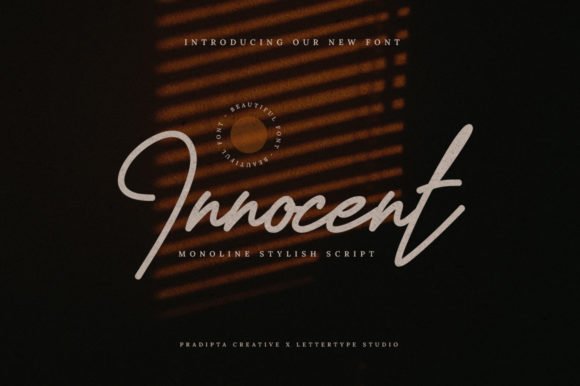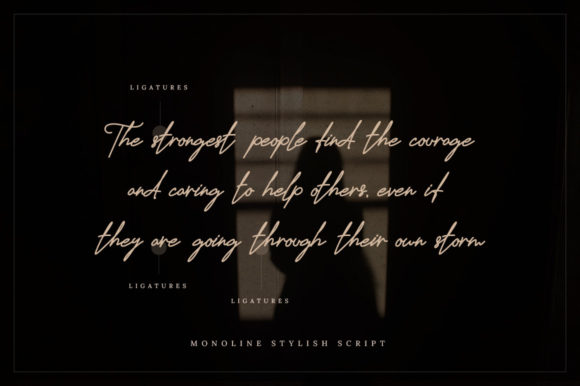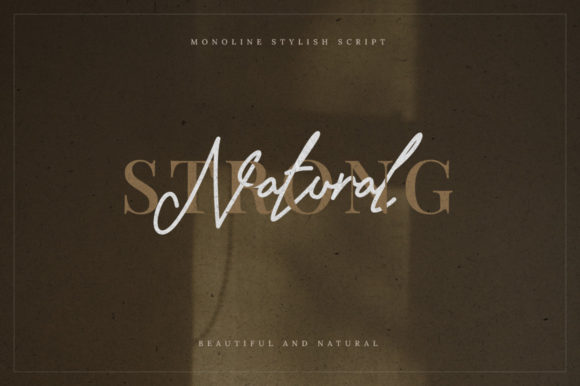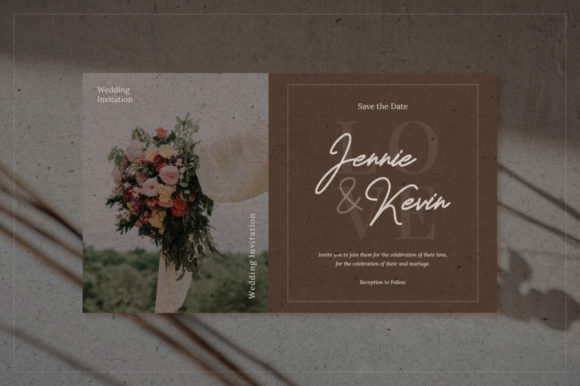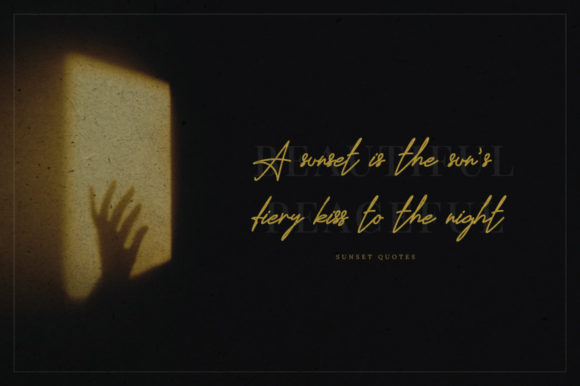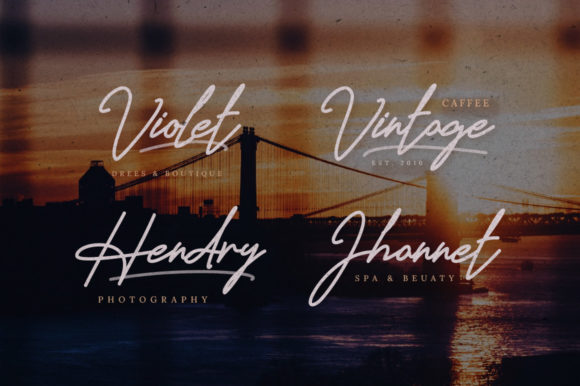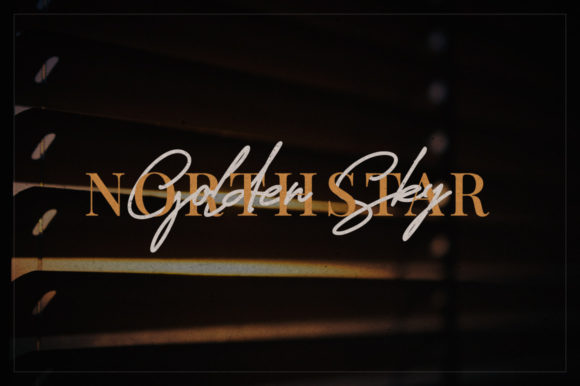
Unleash the Elegance with Innocent Script Font
As a designer, there’s nothing quite like the thrill of bringing a new project to life. The blank canvas, the endless possibilities, and the rush of excitement as your ideas start to take shape. For many of us, it’s a moment we live for. But, what happens when you want to add a touch of sophistication and class to your design? That’s where the Innocent Script Font comes in – a stylish and light script font that’s perfect for elevating your work.
Crafted with elegance and refinement in mind, this font is designed to add a beautiful and refreshing touch to your designs. Whether you’re creating a wedding invitation, a branding package, or a marketing campaign, the Innocent Script Font is sure to leave a lasting impression. Its versatility and sophistication make it a valuable asset for designers looking to take their work to the next level.
- Unique Characteristics: Features a elegant, handwritten feel with subtle flourishes and connections between letters, making it perfect for creating a sense of warmth and sophistication in designs.
Designer Review: Innocent Script Font
At first glance, the Innocent Script Font caught my attention with its elegant, handwritten feel ✨. The font’s cursive script style is reminiscent of classic romance and sophistication. I appreciate how the font designer has carefully crafted each letter to create a sense of fluidity and movement.
- ✨ Elegant, handwritten feel that’s perfect for romantic or vintage-inspired designs
- ✨ Highly customizable with a wide range of weights and styles to choose from
- ✨ Excellent legibility, making it suitable for both body text and headings
- ⚠️ Limited language support, making it less suitable for multilingual projects
- ⚠️ May not be the best choice for digital screens, as it can appear fuzzy or distorted at certain resolutions
Overall, I think the Innocent Script Font is a beautiful choice for designers who want to add a touch of elegance and sophistication to their projects. While it may have some limitations, it’s a versatile font that can be used in a variety of contexts. With proper use and customization, it can add a unique and memorable touch to any design.
The Innocent Script font is ideal for creating a whimsical and playful feel in designs. It’s commonly used in wedding invitations, birthday party decorations, and children’s book illustrations.
To get the most out of this font, use it in combination with other playful fonts and design elements, such as illustrations and graphics. Experiment with different font sizes, colors, and styles to create a unique and eye-catching design.